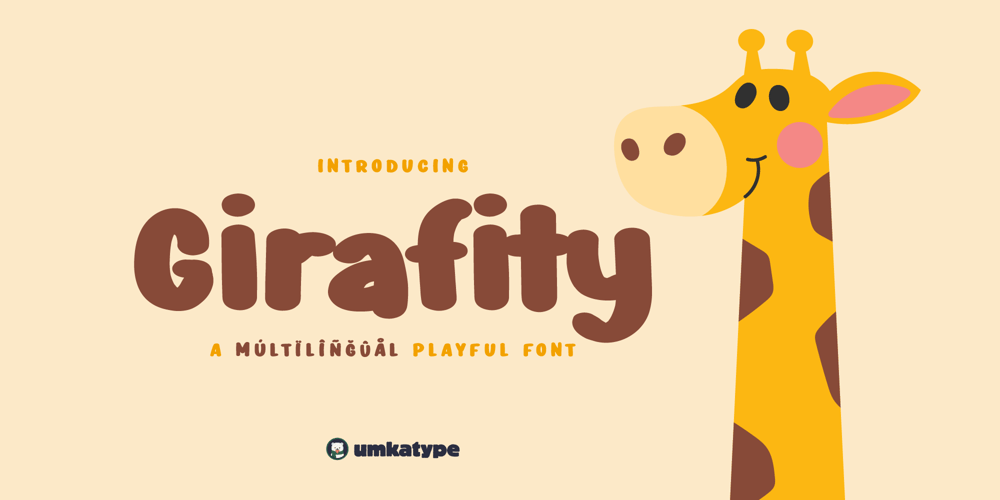
Girafity Font Family was designed by Alper Çakıcı and published by Umka Type. Girafity contains 1 styles and family package options. Introducing our latest handmade childish font: Girafity✨ It is a delightful creation, perfect for adding a playful touch to any project. With support for a whopping 103 languages, it’s not just fun but also incredibly versatile. Dive into a world of creativity with this unique and joyful font that’s sure to bring a smile to your designs.Languages Supported:Afrikaans • Albanian • Asu • Azerbaijani • Basque • Belarusian • Bemba • Bena • Bosnian • Breton • Bulgarian • Catalan • Cebuano • Chiga • Colognian • Cornish • Corsican • Croatian • Czech • Danish • Dutch • Embu • English • Erzya • Esperanto • Estonian • Faroese • Filipino • Finnish • French • Friulian • Galician • Ganda • German • Guarani • Gusii • Hungarian • Icelandic • Ido • Inari Sami • Indonesian • Interlingua • Irish • Italian • Javanese • Jju • Jola-Fonyi • Kabuverdianu • Kaingang • Kalaallisut • Kalenjin • Kamba • Kikuyu • Kinyarwanda • Kurdish • Latvian • Lithuanian • Lojban • Low German • Lower Sorbian • Luo • Luxembourgish • Luyia • Macedonian • Machame • Makhuwa-Meetto • Makonde • Malagasy • Malay • Maltese • Manx • Māori • Meru • Mohawk • Morisyen • Nheengatu • North Ndebele • Northern Sami • Northern Sotho • Norwegian Bokmål • Norwegian Nynorsk • Nyanja • Nyankole • Occitan • Oromo • Ossetic • Polish • Portuguese • Quechua • Rejang • Romanian • Romansh • Rombo • Rundi • Russian • Rwa • Samburu • Sango • Sangu • Sardinian • Scottish Gaelic • Sena • Serbian • Shambala • Shona • Sicilian • Slovak • Slovenian • Soga • Somali • South Ndebele • Southern Sotho • Spanish • Sundanese • Swahili • Swati • Swedish • Swiss German • Taita • Taroko • Teso • Tsonga • Tswana • Turkish • Turkmen • Ukrainian • Upper Sorbian • Vunjo • Walloon • Walser • Welsh • Western Frisian • Wolastoqey • Wolof • Xhosa • Zulu